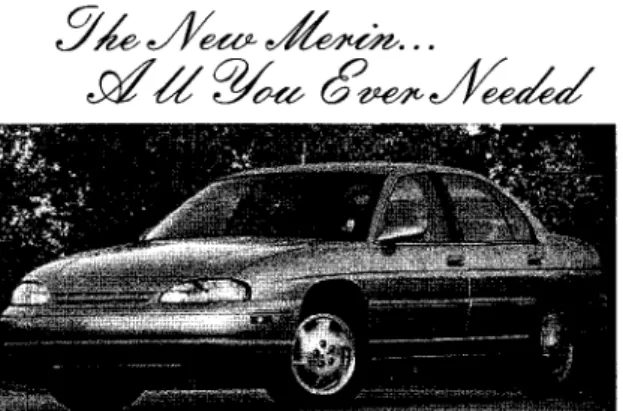
All Dressed Up With Something to Say:
Effects of Typeface Semantic Associations on
Brand Perceptions and Consumer Memory
In this research, a conceptual framework is developed that addresses the impact of typeface se-mantic cues within a marketing context. Visual properties of typefaces are conceptualized as communicating unique semantic associations to individuals distinct from the content of the written words they clothe. Typeface associations are investigated across varying levels of in-volvement in terms of their effect upon brand perceptions. These associations also influenced the memorability of advertised benefit claims. Memorability was enhanced as the degree of con-sistency among typeface semantic cues, advertisement visual cues, and advertisement copy claims increased. Extensions of this framework focus on obtaining a more complete understand-ing concernunderstand-ing the semantic pathways through which typefaces convey meanunderstand-ing.
Marketing communications often consist of three primary components: A visual image, a verbal message, and a voice used to convey the content of the verbal message. In television and online computer advertising, for example, full motion vi-sual images are commonly coupled with a verbal message de-livered by the announcer’s voice. In other forms of communi-cations—such as print advertising, in-store displays, product packaging, couponing, and brand logos—a parallel to this situ-ation exists. In these situsitu-ations visual images are commonly combined with a written verbal message. The “voice” used in these communication modes is the costume or physical appear-ance of the written words. In this sense, typefaces are used to “speak” to consumers on occasions when the spoken word is simply not feasible. For instance, Unnava, Burnkrant, and Erevelles (1994,) noted that, “people exposed visually to the Wendy’s trademark may remember the font used by Wendy’s restaurants, and this may contribute to the belief that they make old-fashioned hamburgers” (p. 481).
Sparked by the proliferation of desktop publishing equip-ment, recent developments in the design and usage of typeface
alternatives are expected to carry some interesting implications for marketing communications in the near future. While vast quantities of unique typefaces have been available to profes-sionals within marketing communications, similar type de-signs are becoming available to any firm or individual with a personal computer. Firms of all sizes are now able to consider typography as an affordable design decision for brochures, in-store displays, coupons, and advertising. However, while typography choices are becoming more available, the effects of typefaces at the consumer level are not well understood.
Although past researchers have provided some limited re-search that addresses typeface semantic effects, a sustained research effort aimed at building a framework for the influ-ence of these semantic associations on important marketing variables is lacking. For example, research from information design has demonstrated that individuals are able to consis-tently extract meaning from typefaces along a number of se-mantic dimensions. Research from psychology suggests an immediate–perceptual indirect influence of typeface seman-tics. From a marketing standpoint, it is critical to extend our understanding concerning the influence of these associations (a) when the typeface cues appear in a rich, competitive envi-ronment, such as a print advertisement context, where multi-ple elements provide input to consumers concerning brands; (b) on dependent variables, of interest to marketers; and (c)
under conditions reflecting a more natural consumer decision making context.
Accordingly, the research objectives of this article are to (a) further examine the semantic nature of typography, (b) in-vestigate the situations under which typeface cues in advertis-ing serve as influential cues for consumers in formadvertis-ing perceptions of brands, and (c) extend the effect of typeface se-mantic associations to consumer memory for advertised brand claims. To accomplish this, two experiments were con-ducted and their results are summarized. Prior to discussing these findings we first review past research on typeface se-mantic effects and then provide a conceptual framework that enables us to hypothesize about the nature of typeface associ-ations in the consumer context.
REVIEW AND SYNTHESIS OF EXISTING RESEARCH ON THE VISUAL CHARACTERISTICS OF VERBAL
STIMULI
Our review focuses on the semantic influences of the visual appearances of verbal material. Prior to this review, a short section develops a useful classification system for catego-rizing typefaces that will also be referred to throughout this research (McLean, 1980).
The Vocabulary of Type
Typography is the art, or skill, of designing communication by means of the printed word. The letters used to communi-cate ideas can take on a variety of forms due to variations in the elements of a letter’s design. Four elements of design are of particular interest: line, weight, orientation, and size. The lineis the basic element that gives form to a letter and deter-mines the style of the type.Weightof a style of type refers to the volume of white space its letters replace with ink within a contained area. The weight of the lines in a type style may vary from “light” to “medium” to “ultra bold.”Orientation refers to the vertical position (e.g., upward versus slanted) of a type style. The final stylistic element of a typeface issize. The overall size of a style of type is determined by the sizes of the three components of any letter: the x-height, the ascenders, and the descenders. By combining different values of the properties of line, weight, orientation, and size, distinct styles of type may be created. Research regarding these asso-ciations is examined in the following section.
Visual Features and Their Semantic Associations
Research suggests that the visual features of words influence verbal processing at an earlier stage than the actual semantic
processing of the written message. For instance, researchers have examined the issue of legibility of letters and words as influenced by choice of type styles (Tinker, 1963; Webster & Tinker, 1935) as well as the case (upper versus lower) of the letters (Tinker & Patterson, 1928), and case alternation (Posner, 1970; Posner & Boies, 1971). In each of these in-stances, the visual properties of verbal stimuli influenced the processing of the verbal material itself. The next logical step suggests that these visual features may actually activate their own semantic representations.
Research from information design and marketing has demonstrated that individuals are capable of perceiving con-sistent meaning in typefaces, as indicated by direct ratings of typefaces on semantic differentials (Bartram, 1982; Rowe, 1982; Tantillo, Lorenzo-Aiss, & Mathisen, 1995; Walker, Smith, & Livingston, 1986). For example, Bartram (1982), Rowe (1982), and Tantillo et al. (1995) all presented subjects with a selection of unique typefaces and participants indi-cated the connotations of the type styles using multi-item scales. Ratings revealed a limited number of dimensions (e.g., potency, elegance, and novelty) that were useful in de-scribing the semantic qualities of the typefaces. Walker, Smith, and Livingston (1986) also demonstrated that subjects were able to identify semantic qualities associated with a par-ticular style of typeface. In addition, these researchers dem-onstrated that typeface appropriateness for a specific application is determined, in part, by the degree to which it shares features with the application context (e.g., “sturdy” and “heavy” as appropriate for representing “sturdy”, “heavy” professions, such as, construction work).
consis-tent. Given these findings, it is useful to conceptualize type-faces contained in marketing communications as independ-ent componindepend-ents which convey meaning that consumers are able to perceive and store in memory as nodes in a semantic network.